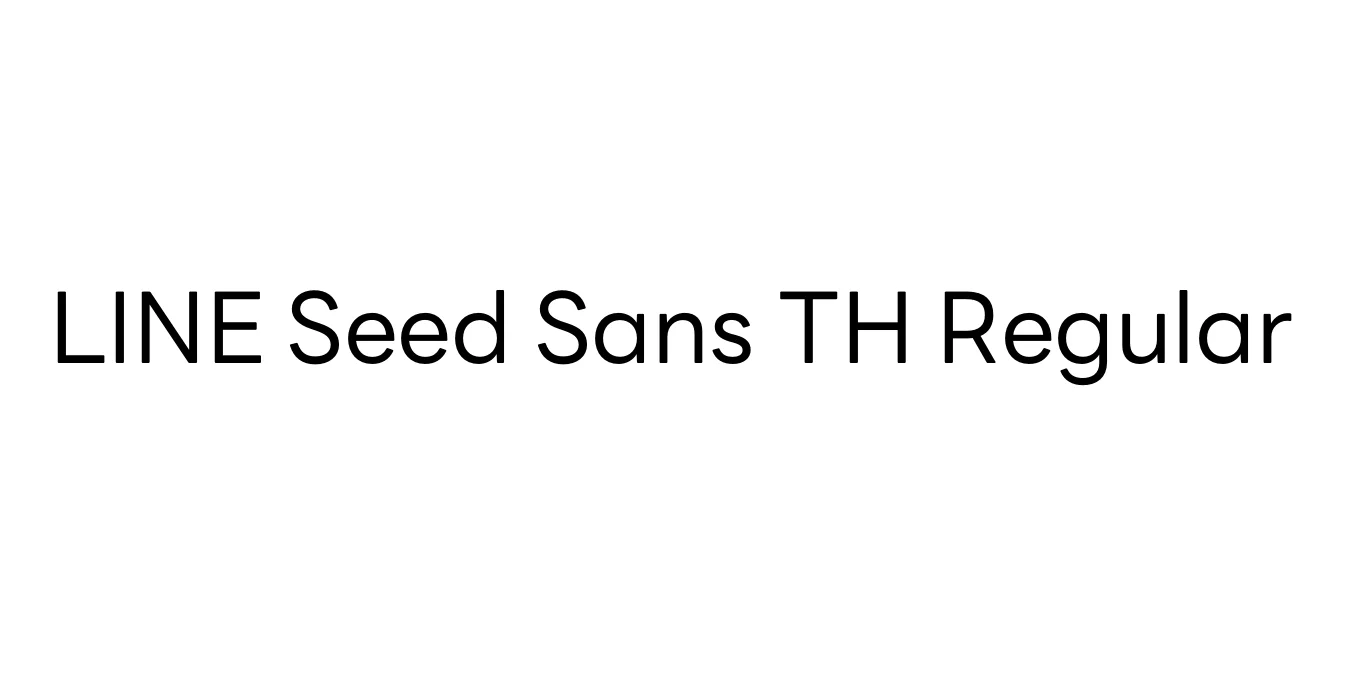
LINE Seed Sans TH Regular
Designed by Dalton Maag, LINE Creative, and Cadson Demak
LINE Seed Sans TH Regular is the official custom typeface developed for LINE, the global messaging platform, to establish a cohesive brand identity across its diverse ecosystem. The Thai variant was specifically crafted in collaboration with Cadson Demak, a leading Thai type foundry, to ensure that the script's unique tonal marks and loops align perfectly with the modern, geometric aesthetic of the original Latin Seed font. The result is a seamless transition between Thai and English characters, maintaining a balanced weight and rhythm.
This typeface is characterized by its friendly yet professional demeanor, featuring open apertures and a generous x-height that enhances legibility on mobile screens. As the name 'Seed' suggests, the font is designed to represent growth and connectivity. Its versatile nature makes it an excellent choice for everything from high-density body text to striking headlines, providing a contemporary look that feels both accessible and technologically advanced.
LINE Seed Sans TH Regular Best Uses
Optimized for mobile interfaces and dashboard displays where clarity is paramount.
Excellent for building a modern and trustworthy brand image for tech-focused companies.
Versatile for digital ads and social media graphics that require a clean, contemporary look.
Highly readable for long-form content on blogs and news websites.